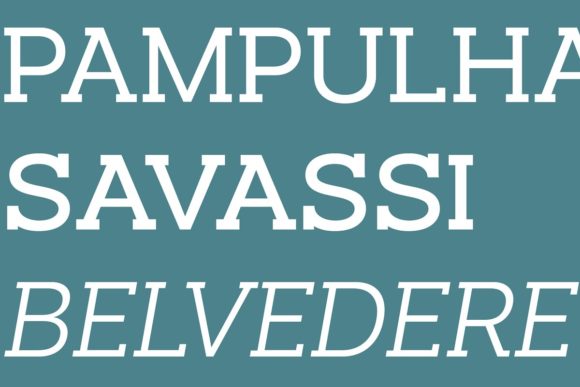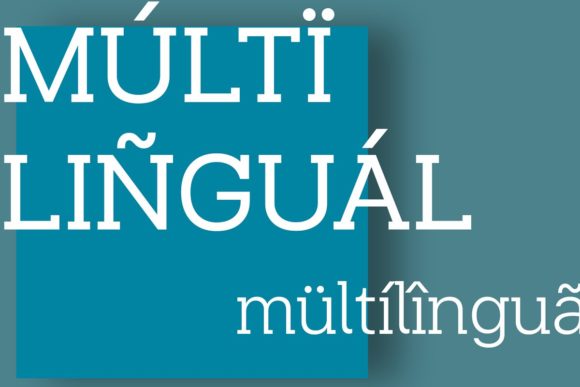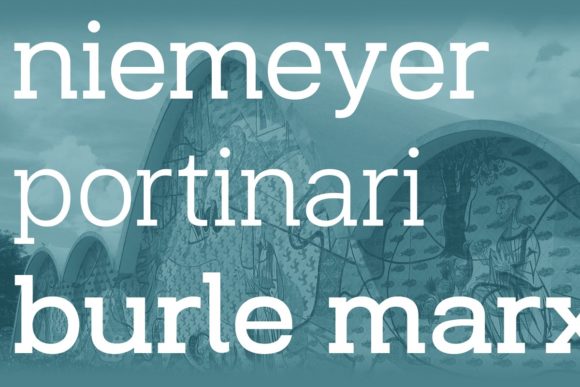
Designing with Clarity: Introducing Beaga Font
Have you ever stared at a blank page, trying to bring a creative idea to life, only to be met with a blank stare in return? The blank page syndrome is a familiar foe for many designers, but what if we told you that the right font could be the key to unlocking your creative potential?
Enter Beaga Font, a clean and geometric slab-serif font family that beautifully balances style with legibility. This versatile font is designed to help designers communicate their message with clarity and precision, making it the perfect addition to any project. Whether you’re working on a modern branding project or a simple brochure, Beaga Font is sure to bring your design to life.
As a designer, you know the importance of choosing the right font to convey your message. With Beaga Font, you’ll have the freedom to create designs that are both visually appealing and easy to read. Its clean lines and geometric shapes make it a valuable addition to any designer’s toolkit, and its versatility ensures that it will never go out of style.
Beaga Font Key Features
- Unique Characteristics: Beaga Font features a unique blend of modern and traditional elements, with elegant lines, subtle flourishes, and a sophisticated aesthetic.
- Font Styles: Beaga Font includes multiple font styles, including Regular, Italic, Bold, and Bold Italic, allowing users to customize their designs with varying levels of emphasis and emphasis.
- Scalability: The font is designed to be highly scalable, ensuring that it looks great in a wide range of sizes and resolutions, from small text to large headings.
Beaga Font Review
After diving into the world of Beaga Font, I must say it’s a font that has some great qualities, but also some limitations. ✨
One of the things that works well is its modern and playful vibe, making it perfect for projects that require a fun and youthful feel. The font is highly legible and works well for both body text and headings. The Beaga Font family is quite extensive, with a range of weights and styles to choose from, which is always a plus. ✨
Another aspect that stands out is the font’s versatility. It can be used for both digital and print projects, and its modern design makes it suitable for a wide range of industries, from fashion to technology. ✨
However, there are some limitations to consider. ⚠️ The font’s uniqueness can sometimes make it feel a bit too trendy, and it may not be suitable for projects that require a more classic or timeless look. Additionally, the font’s weight distribution can be a bit uneven, which may affect its readability in certain contexts. ⚠️
Key Points:
- Modern and playful vibe
- Highly legible and versatile
- Extensive font family
- Might feel too trendy for some projects
- Uneven weight distribution
Overall, Beaga Font is a solid choice for projects that require a fun and modern feel. While it may not be perfect for every project, it’s definitely worth considering for the right applications.